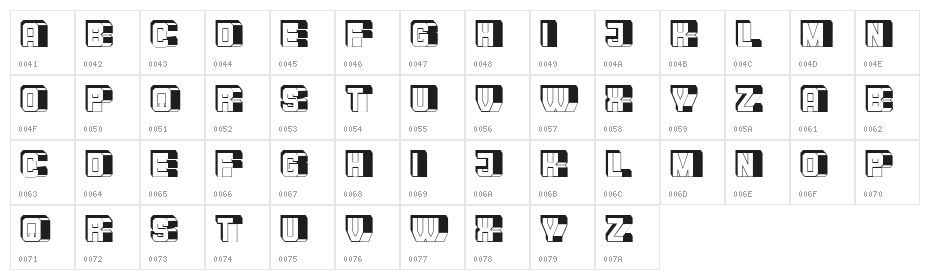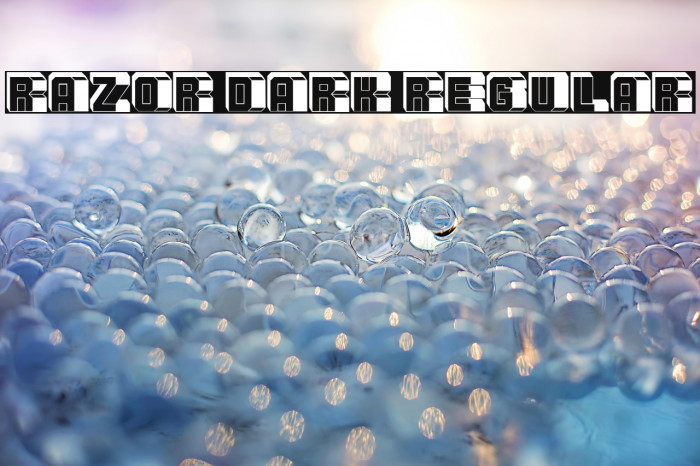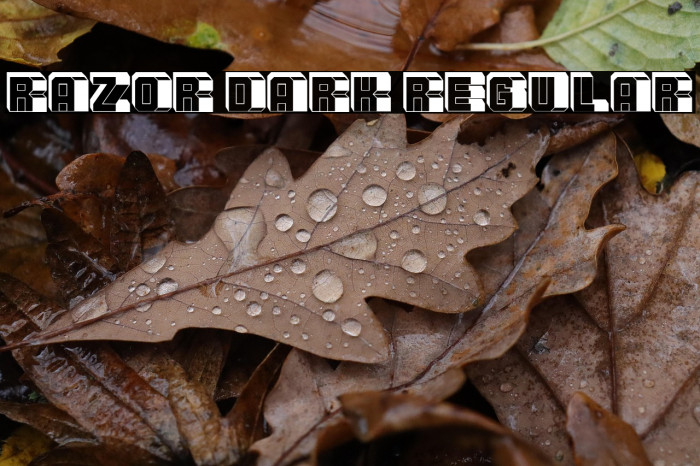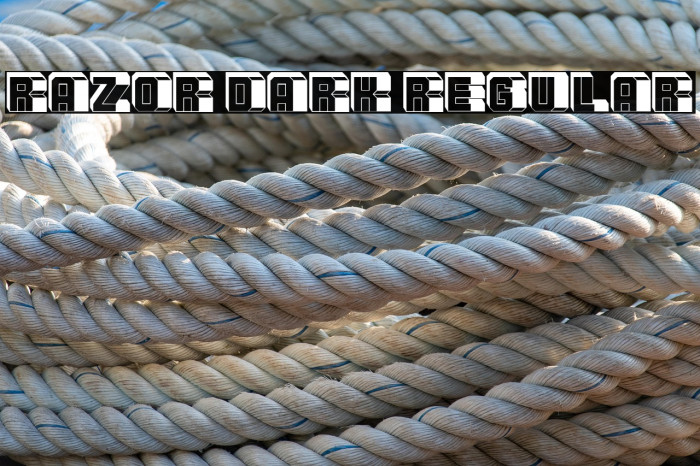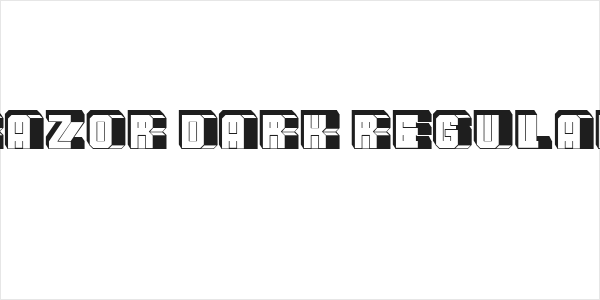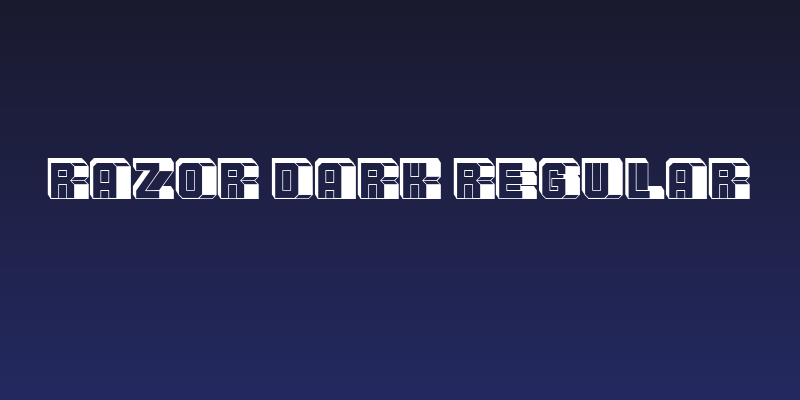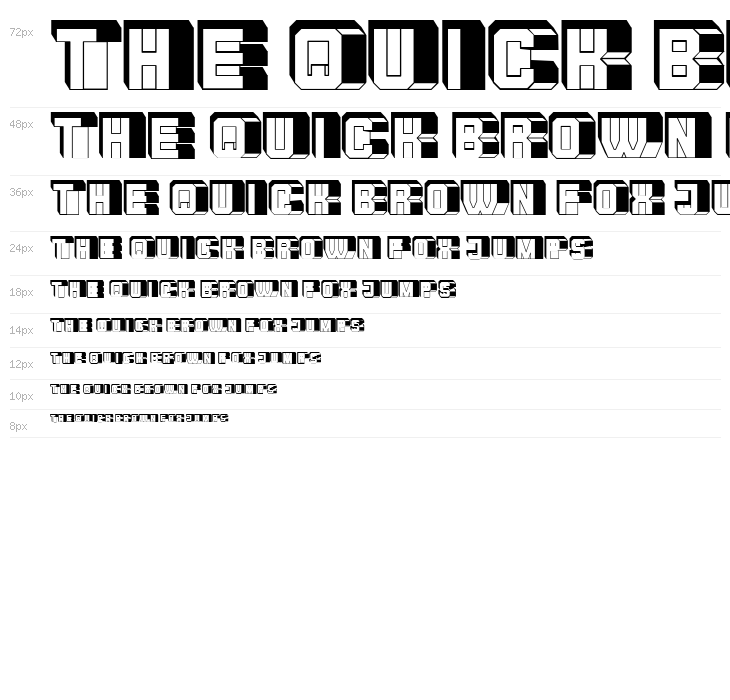
Razor Dark Regular Font
Razor Dark Regular Description
This font features a bold and striking 3D effect, with each character appearing as if it is carved out of a solid block. The letters are uppercase and have a geometric, angular design that gives them a modern and edgy appearance. The use of contrasting black and white creates a sense of depth and dimension, making the characters stand out prominently. The font is highly decorative, making it suitable for attention-grabbing headlines or logos where a strong visual impact is desired. The consistent thickness of the strokes and the sharp edges contribute to its bold and assertive style.